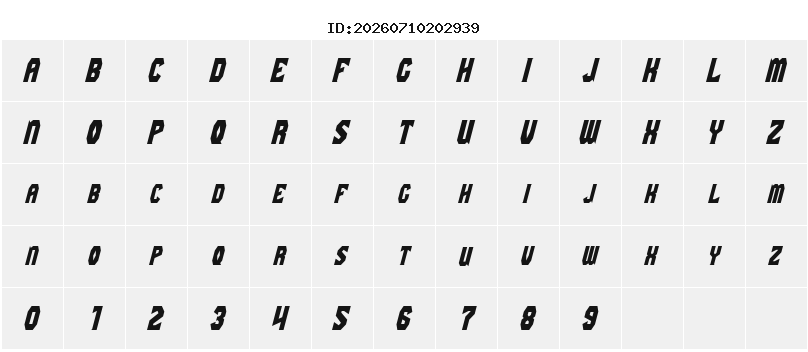
Gaiking Preview
• Font Name: Gaiking
• Full Font Name: Gaiking Italic
• Designer: Neale Davidson
• Manufacturer: Pixel Sagas
About Gaiking.otf
Gaiking.otf is a modern, elegant sans-serif font designed for ultimate readability and visual harmony. Perfect for branding, headlines, web design, and print materials.